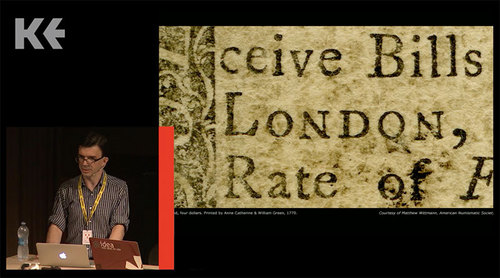
Tobias Frere-Jones: In Letters We Trust
This talk will present ongoing research into the use of letterforms as a means of security for citizens and governments alike, thwarting forgery in plain sight and in secret. Some strategies have relied on high-profile collaborations, and others on home-grown cunning. Interwoven is a story of war and peace, technology, culture and economics. The narrative will focus on American banknotes from the Colonial period to the present day, with additional examples of government permits and lottery tickets.